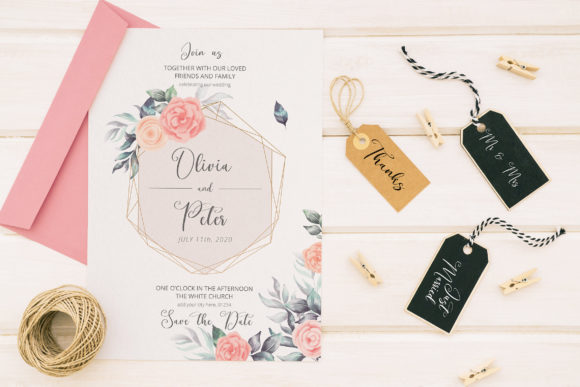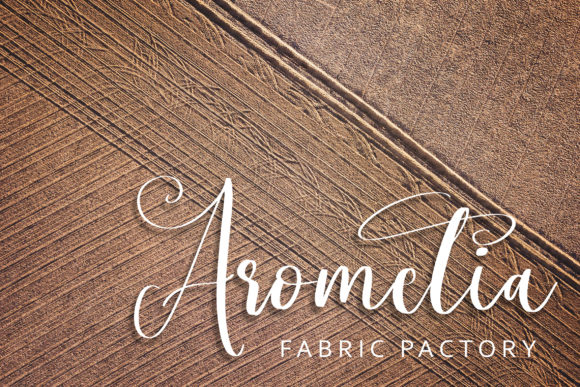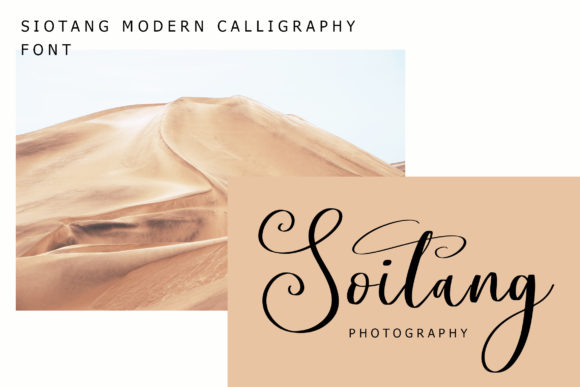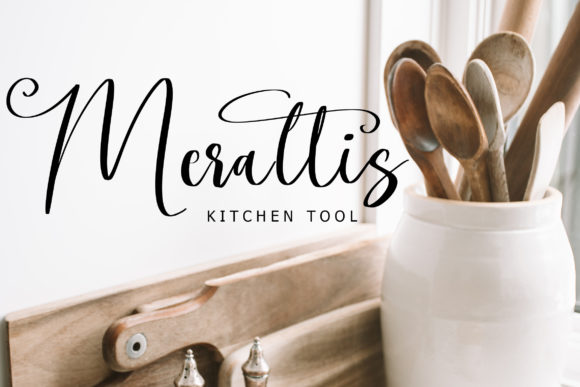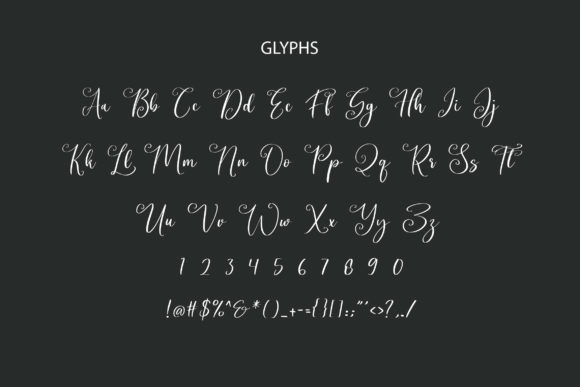
Introduction to Krittany Font
As a designer, there’s nothing quite like the thrill of bringing a creative project to life. Whether it’s a wedding invitation, a birthday card, or a romantic letter, the right font can make all the difference. And that’s where Krittany Font comes in – a sweet and delicate handwritten font that’s sure to add a touch of whimsy and charm to any design.
With its dainty, joyful feel, Krittany Font is the perfect choice for anyone looking to add a romantic, personalized touch to their design. And the best part? This high-quality font is available for free download, making it an invaluable resource for designers of all levels.
Whether you’re working on a design project and need a unique font to give it that extra special something, or you’re simply looking for a new design resource to add to your toolkit, Krittany Font is definitely worth checking out.
Key Features of Krittany Font
- High-quality font with a unique, elegant design, suitable for various creative projects.
- Perfect for use in logos, branding materials, and other design elements where a touch of elegance is required.
Honest Review: Krittany Font
I recently stumbled upon the Krittany Font and I have to say it’s been a game-changer for my design projects. The moment I laid eyes on it, I knew it would be a perfect addition to my creative resources.
What works well: ✨ The high-quality design of Krittany Font is immediately noticeable. The font’s elegant and modern style makes it perfect for a wide range of creative projects, from blog posts to presentations.
- High-quality design: The font’s modern style makes it a great addition to any design project.
⚠️ One thing to note is that the font may not be suitable for all design projects, particularly those that require a more conservative or traditional style. Additionally, some users may find the font a bit too bold or attention-grabbing.
Overall, I’m thoroughly impressed with the Krittany Font and would highly recommend it to designers looking for a high-quality, modern font for their creative projects.
Introduction to Krittany Font
Krittany Font is a high-quality design resource ideal for creative projects. With its unique style and versatility, it can elevate any design to the next level.
Tips for Getting the Most Out of Krittany Font
To get the most out of Krittany Font, use it on a transparent background for a modern look. Experiment with different font sizes and styles to add depth to your design.
Krittany Font is ideal for creative projects such as logo design, branding, and digital art. Its unique style makes it perfect for adding a touch of elegance to any design.
Is the Krittany Font available in different font sizes and styles?
Yes, the Krittany Font comes in a range of font sizes and styles, including bold, italic, and regular weights. This allows you to customize your design to suit your specific needs and create a consistent visual identity. You can also experiment with different font sizes to achieve the perfect balance for your creative project.